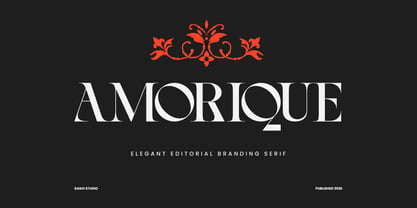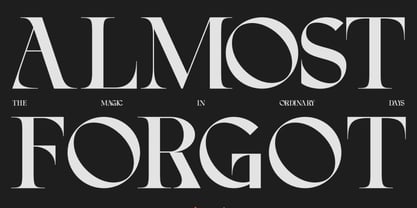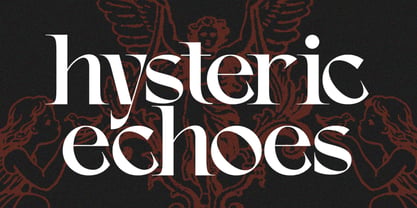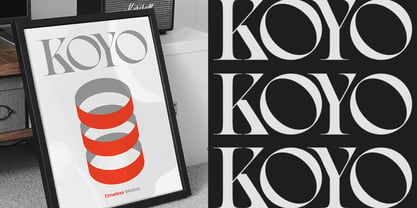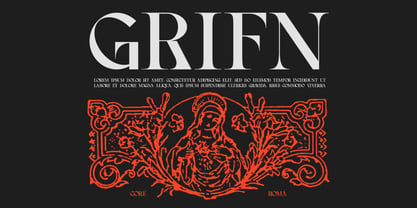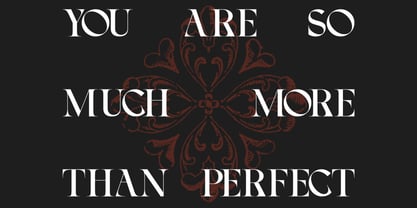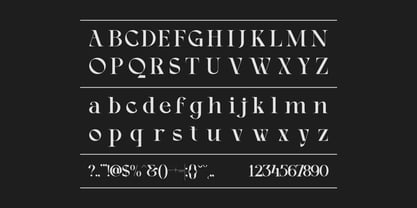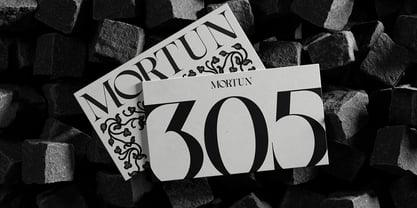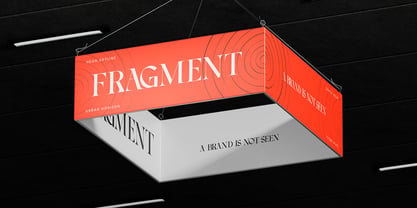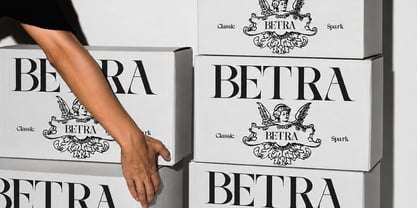
Amorique
by Rasio Studio
The Amorique Font Family was designed by Fajar Indra and published by Rasio Studio. Amorique contains 1 styles. More about this family
Amorique is a sophisticated display typeface defined by sharp high-contrast strokes, refined proportions, and distinctive sculpted terminals. Inspired by luxury editorials and classic fashion typography, the design combines slender vertical stems with graceful curves and geometric counters, creating a striking visual rhythm that feels both timeless and contemporary.
Relevance and Use Case is perfect for projects that demand typography with a refined editorial presence and distinctive personality. Its elegant proportions and high-contrast details make it particularly effective for luxury visual identities, magazine covers, fashion campaigns, premium packaging, boutique branding, and creative layouts where typography functions as both communication and visual expression.